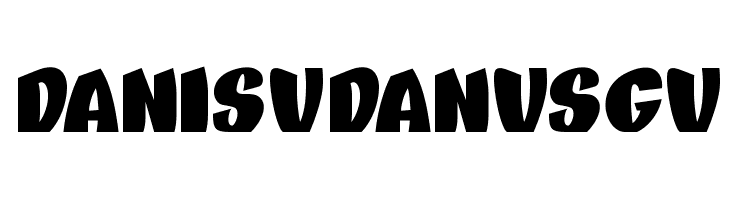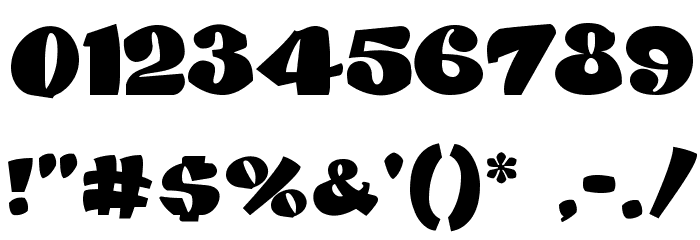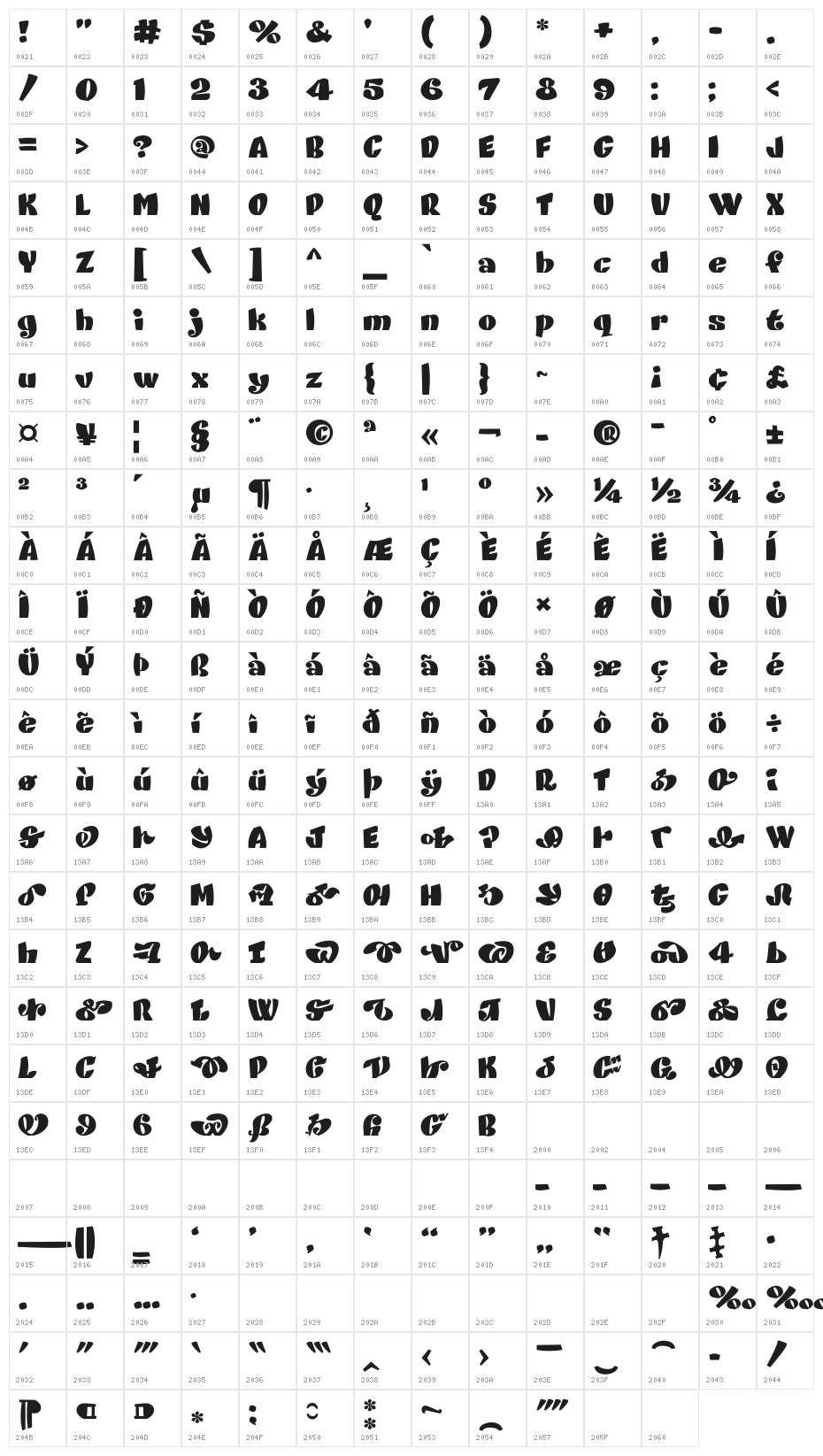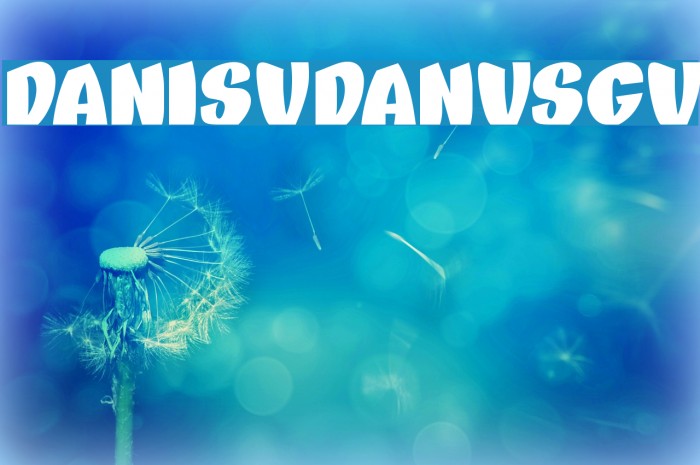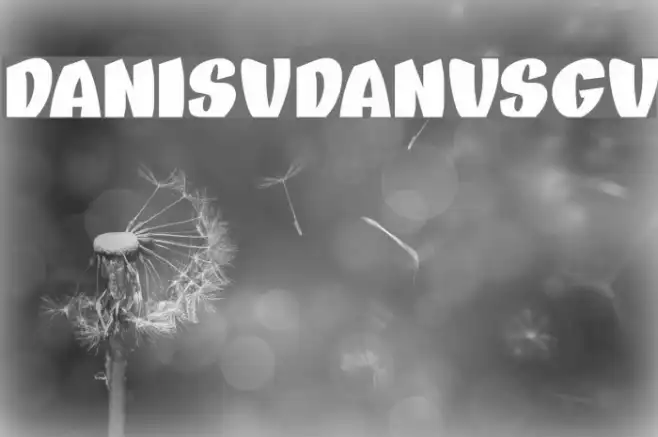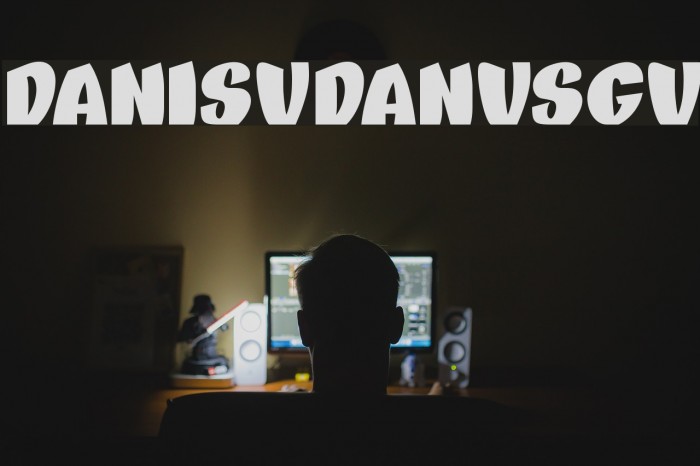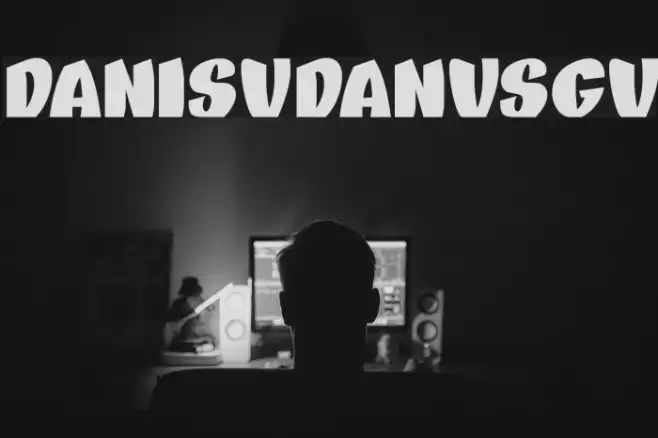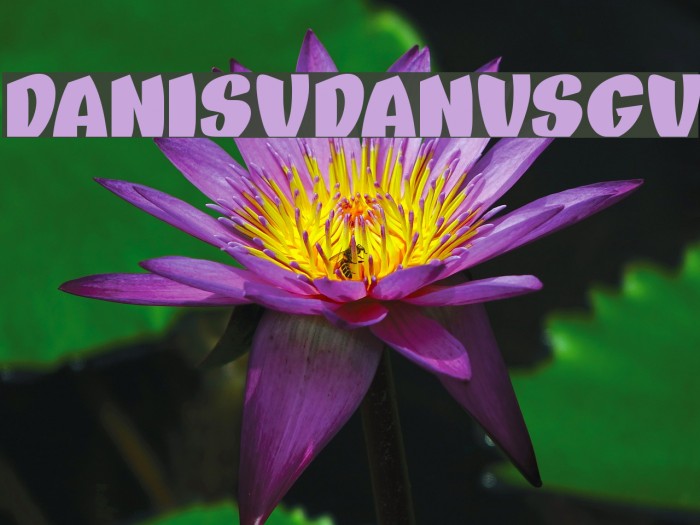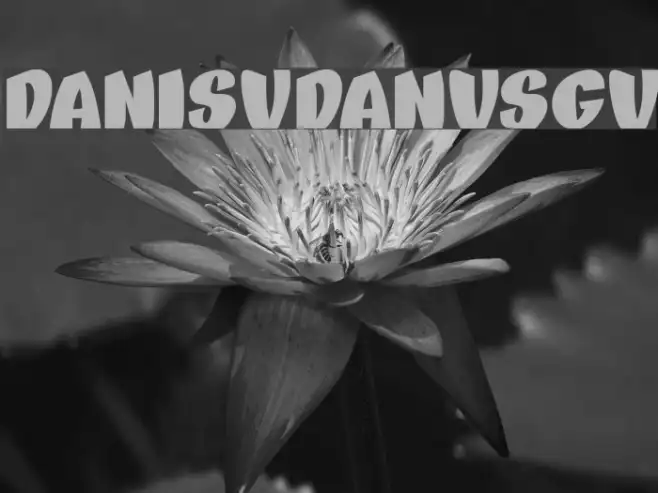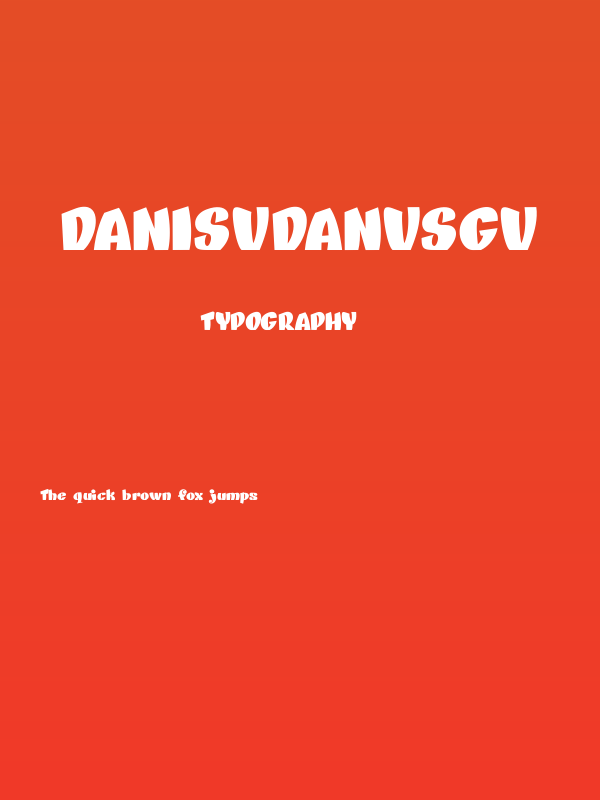
DANISVDANVSGV Font
DANISVDANVSGV Description
This font features a bold and playful design with exaggerated curves and thick strokes, giving it a lively and dynamic appearance. The uppercase letters are robust and commanding, while the lowercase letters maintain a whimsical flair. The numbers and special characters are equally bold, ensuring consistency across all glyphs. The font's unique style is characterized by its decorative elements, making it stand out in any design. Its high contrast between thick and thin strokes adds to its visual impact, making it ideal for attention-grabbing headlines and creative projects.
| Proposed Projects | Ideal for posters, logos, children's books, and any design needing a fun, eye-catching typeface. |